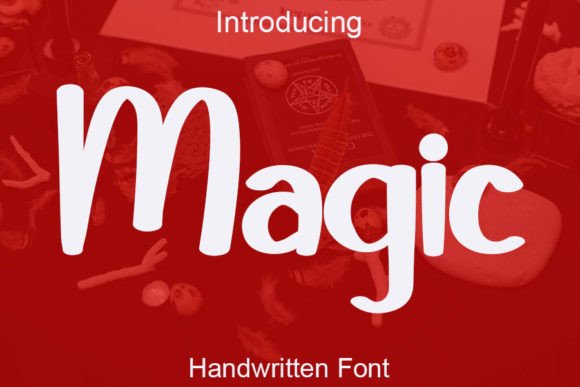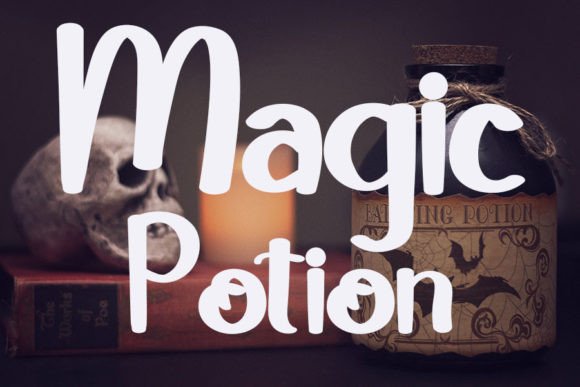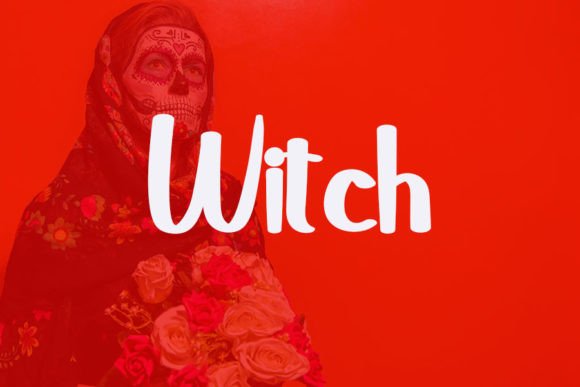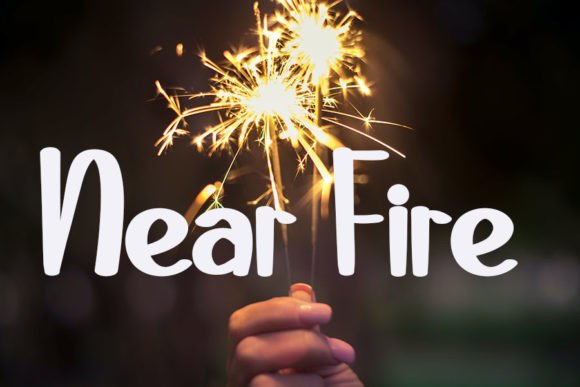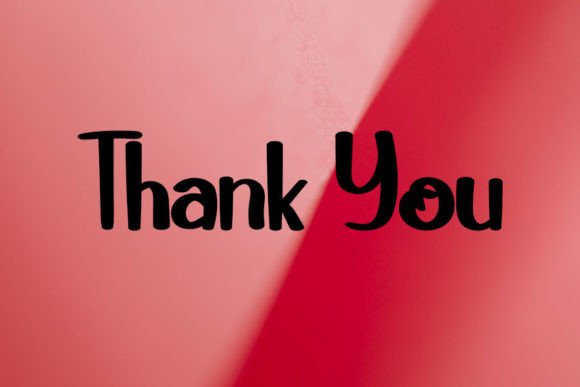
About Magic Font
“Magic” is a meticulously crafted and stunning handwritten font that exudes an air of elegance, making it an impeccable choice for your creative endeavors. Its captivating charm and timeless style will undoubtedly capture your heart, allowing you to craft remarkable designs that leave a lasting impression.
This font’s appeal lies in its unique ability to convey a sense of magic and enchantment. Its neat and beautiful handwriting style adds a touch of sophistication to any project, making it perfect for a wide range of creative applications. Whether you’re designing for personal pleasure or professional purposes, “Magic” can elevate your work to new heights.
The distinctiveness of “Magic” sets it apart, making your designs stand out and command attention. Its graceful lines and impeccable detailing make it an ideal choice for various projects, including but not limited to invitations, greeting cards, posters, branding, product packaging, logos, and so much more.
With “Magic,” you have a font that is not only visually striking but also versatile. Its elegant touch can transform your favorite projects into works of art, creating a sense of wonder and fascination among your audience. Embrace “Magic” to infuse your designs with a touch of charm and make them truly unforgettable.